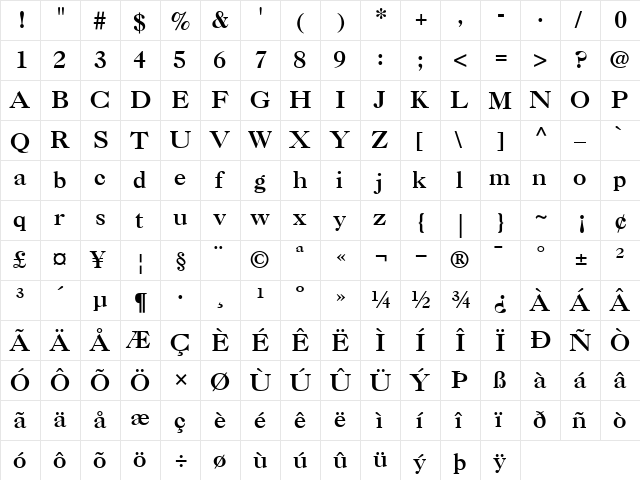
Caslon3Roman Roman
Design Context for Caslon3Roman Typeface
Caslon3Roman takes a measured approach to typography — its balanced proportions and neutral character make it a reliable workhorse for both digital and print work.